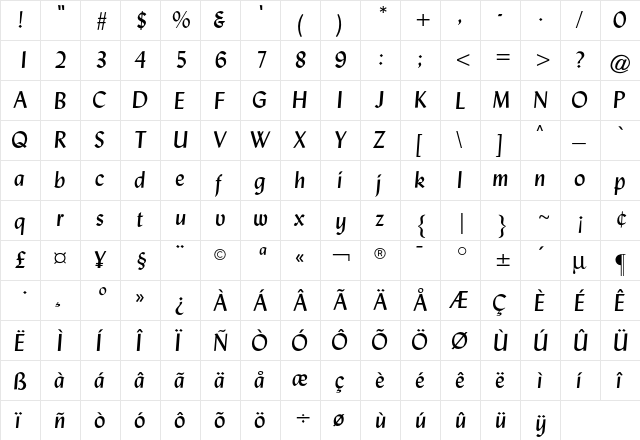
Lisbon CG Italic
Design Context for Lisbon CG Typeface
Lisbon CG offers clean, dependable letterforms without strong stylistic allegiance, making it a practical choice for designers who need flexibility. The dynamic lean of this cut emphasises speed and emphasis in any layout.
Pro Tip: Try Lisbon CG for annotation and caption copy alongside an upright companion — the contrast in angle creates a dynamic but ordered typographic system.